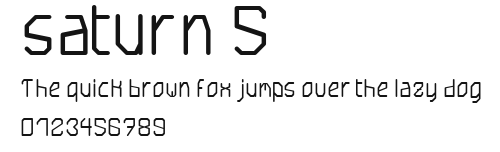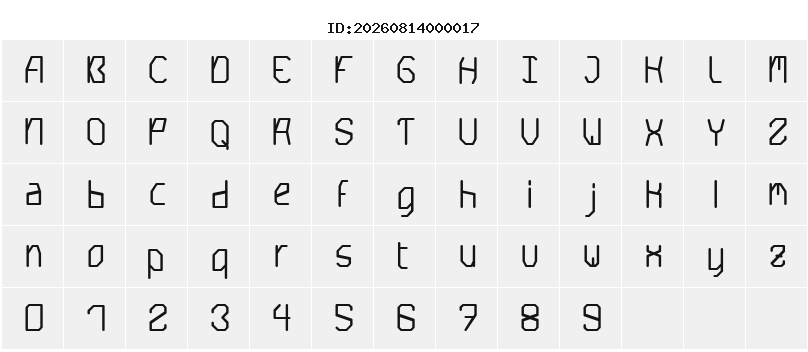
• Font Name: saturn 5
• Font Style: Gras
• Font ID: saturn 5 Bold:Version 1.00
• Full Font Name: saturn 5 Bold
• Version: Version 1.00 September 15, 2011, initial release
• PostScript Name: saturn5-Bold
• Character Count: 189
About saturn 5.ttf
saturn 5.ttf is a modern, elegant sans-serif font designed for ultimate readability and visual harmony. Perfect for branding, headlines, web design, and print materials.